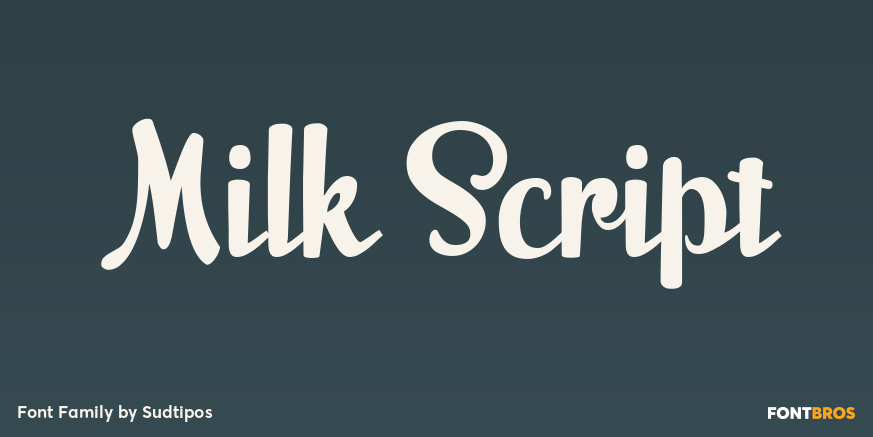
Milk Script
About Milk Script
The hand-lettered signage of 1920s and 1930s America produced many typographic jewels that digital type has yet to manifest. This face is but one of them.Unearthed by Alfredo Graziani and Alejandro Paul from a 1923 Speedball lettering manual, Milk Script…